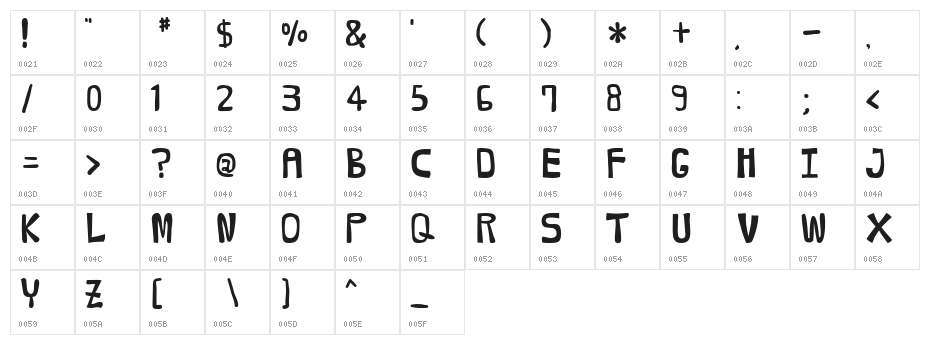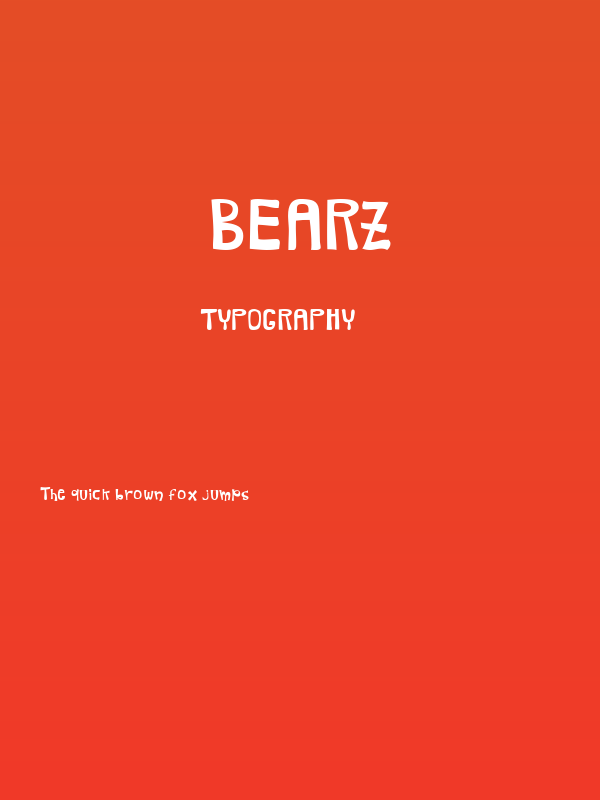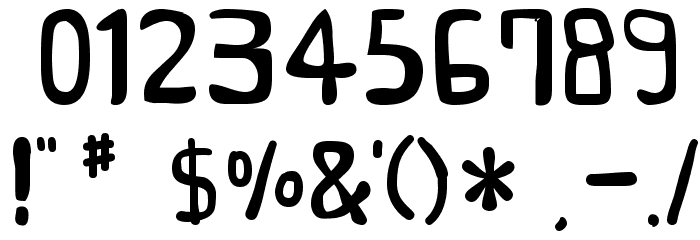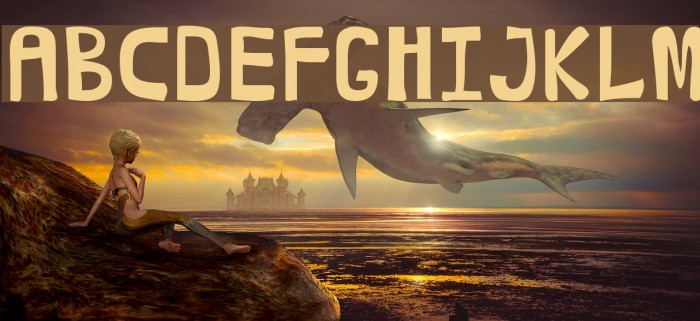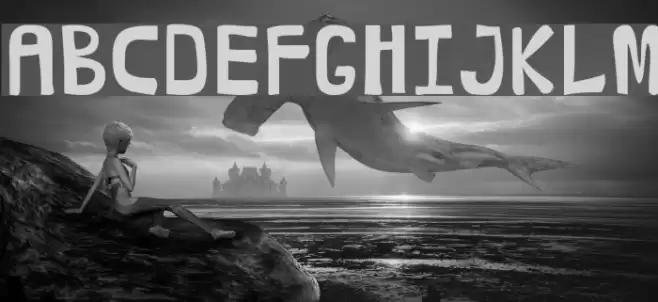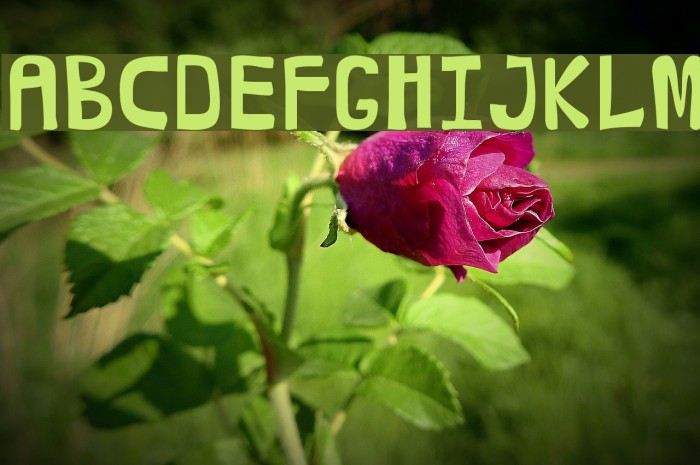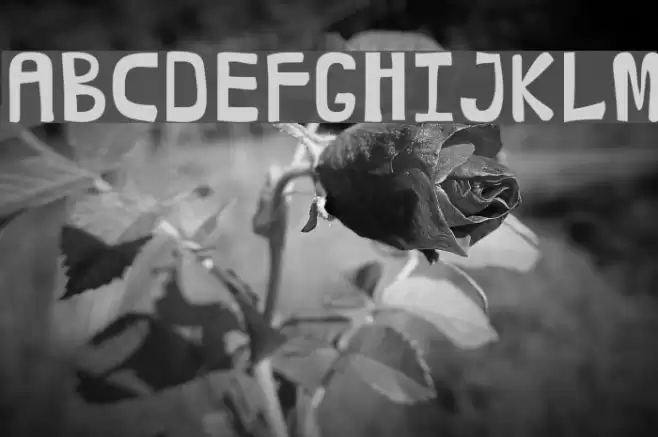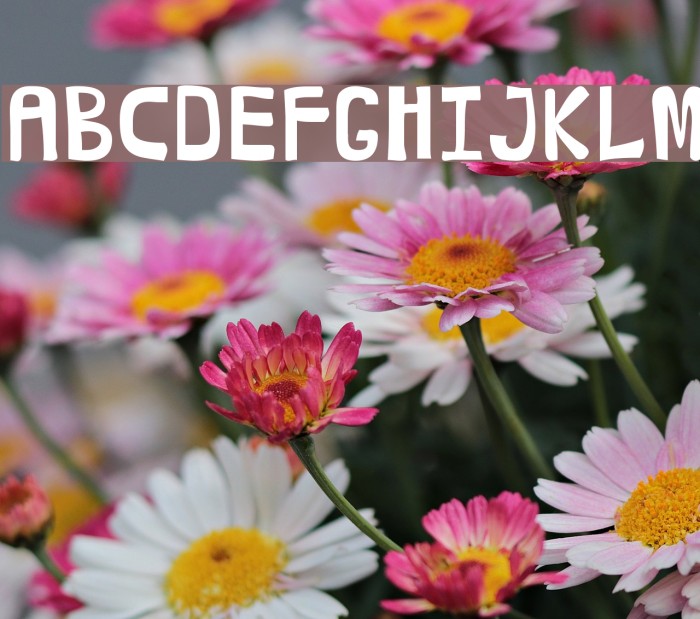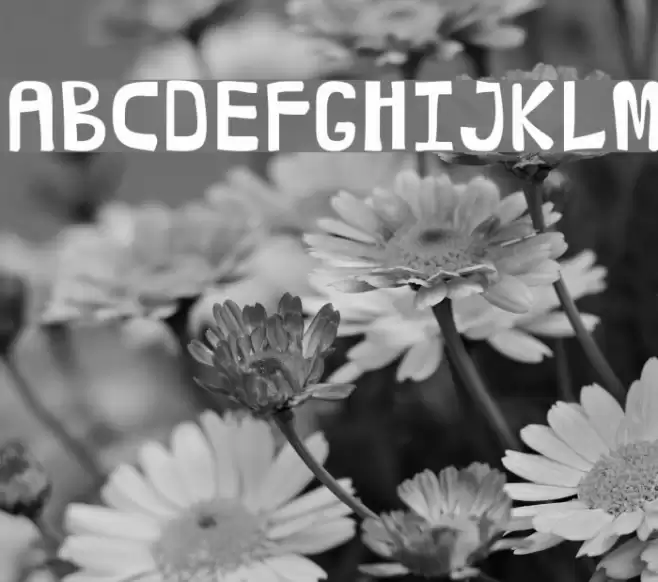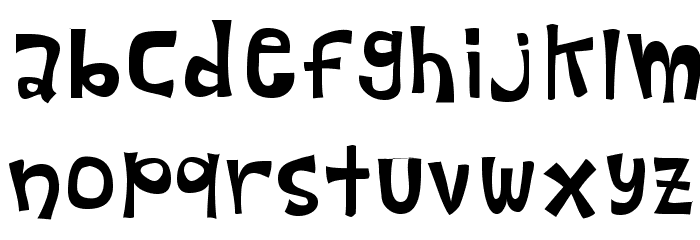
Bearz Font
Bearz Description
This playful and quirky font features a unique, hand-drawn style with an informal and whimsical appearance. The characters are bold and slightly irregular, giving them a lively and dynamic feel. The uppercase and lowercase letters maintain a consistent style, with rounded edges and varying stroke thickness that adds to the font's charm. Numbers and special characters are equally distinctive, ensuring a cohesive look across all text elements. This font is perfect for projects that require a fun and approachable aesthetic, such as children's books, playful branding, or creative posters.
| Overall Style | Playful |
| Proposed Projects | Ideal for children's books, playful branding, creative posters, and informal invitations. |